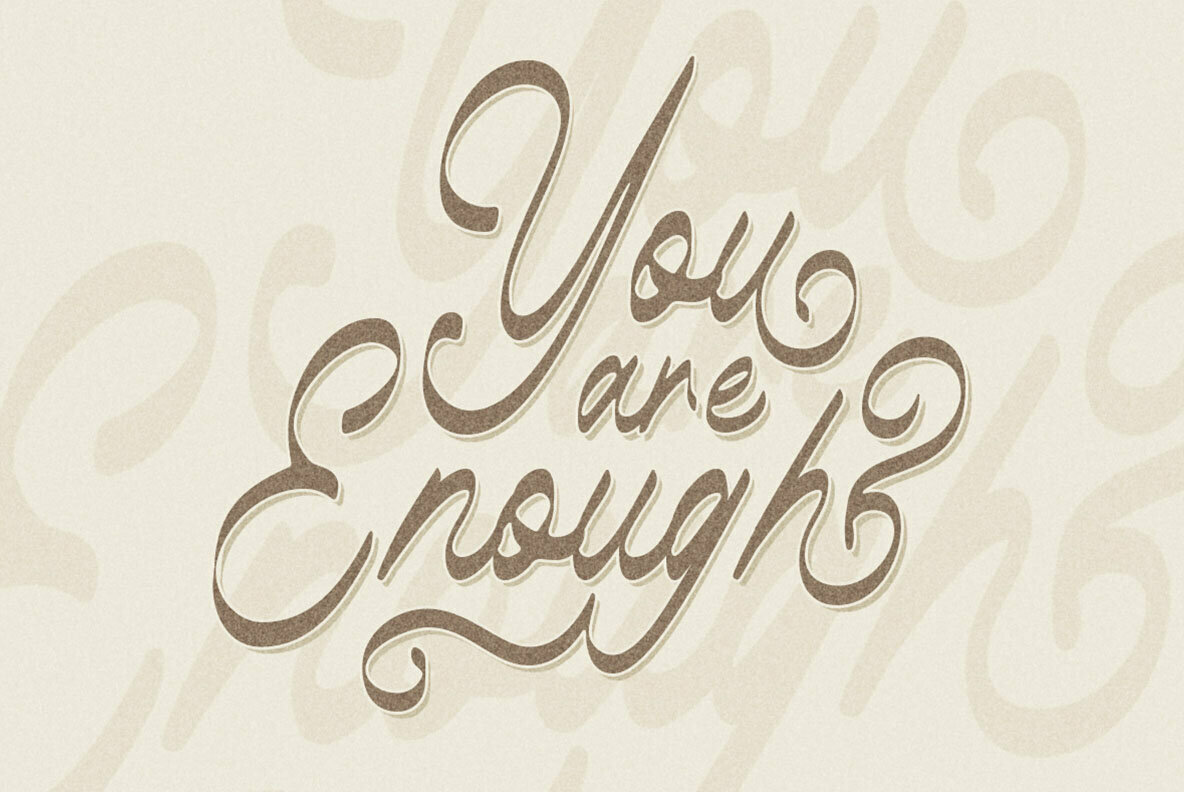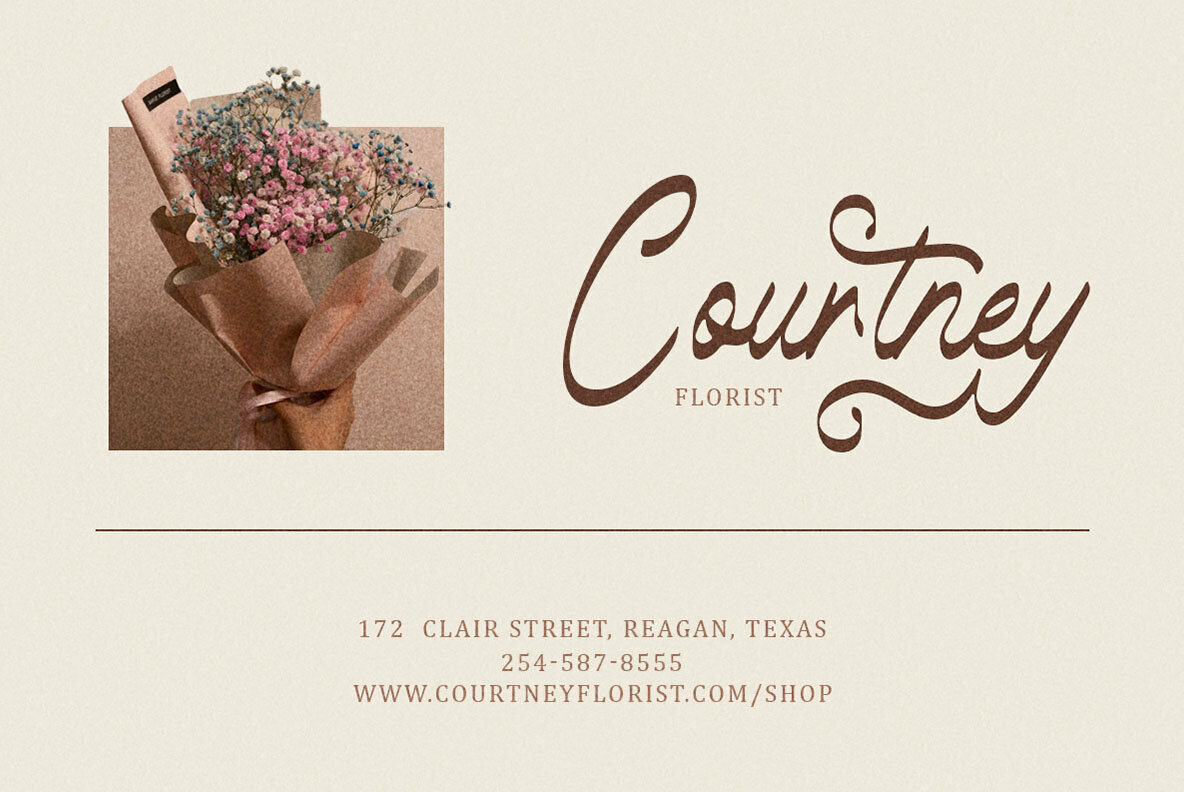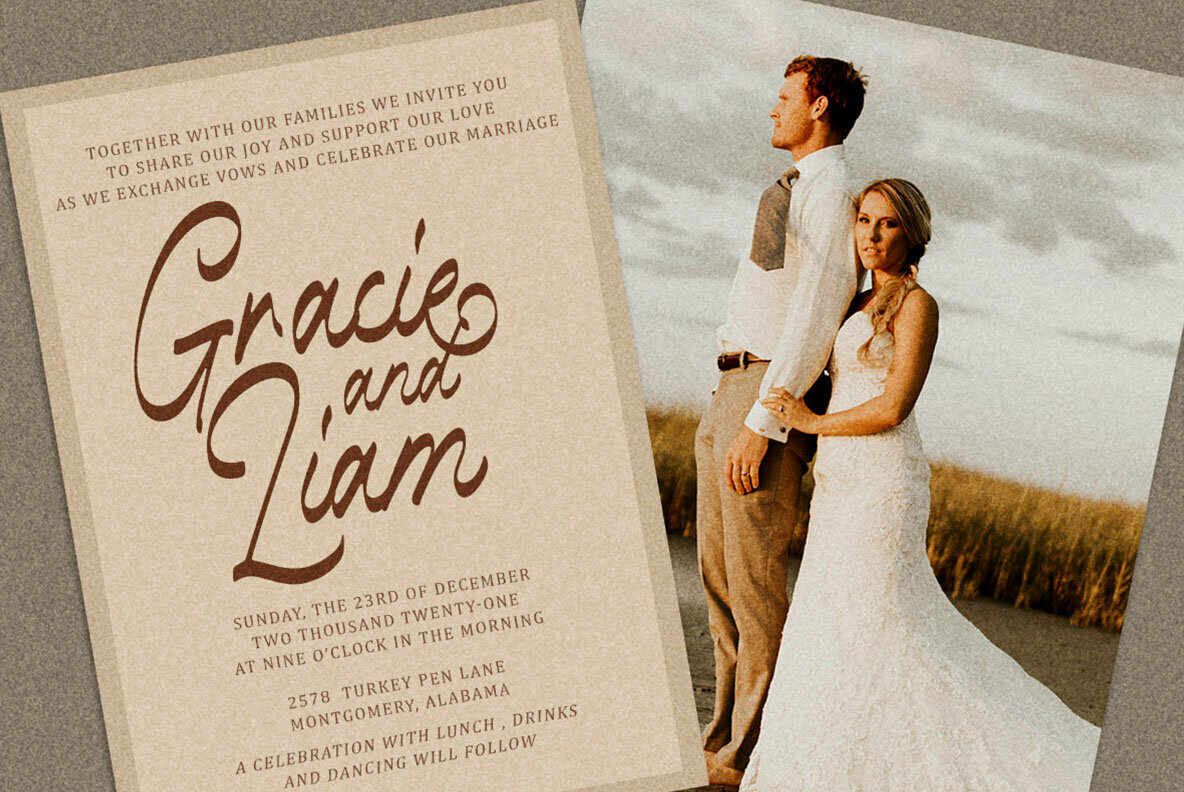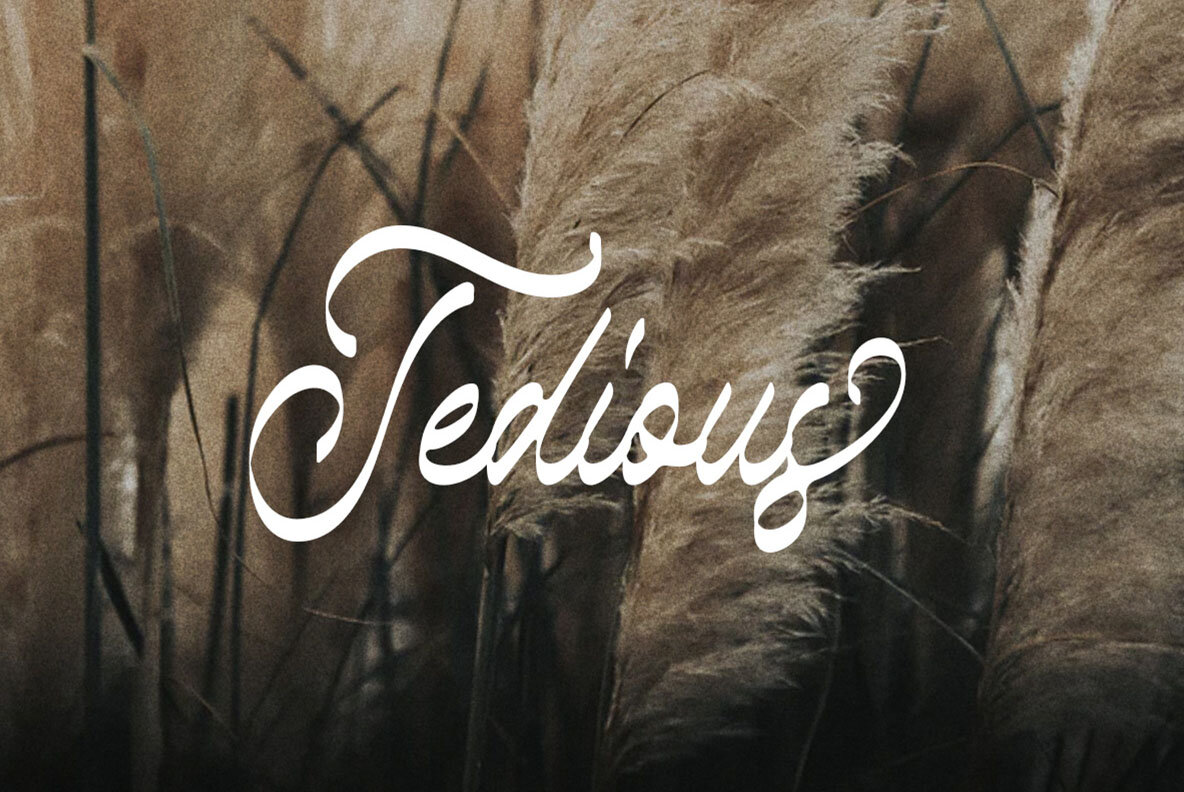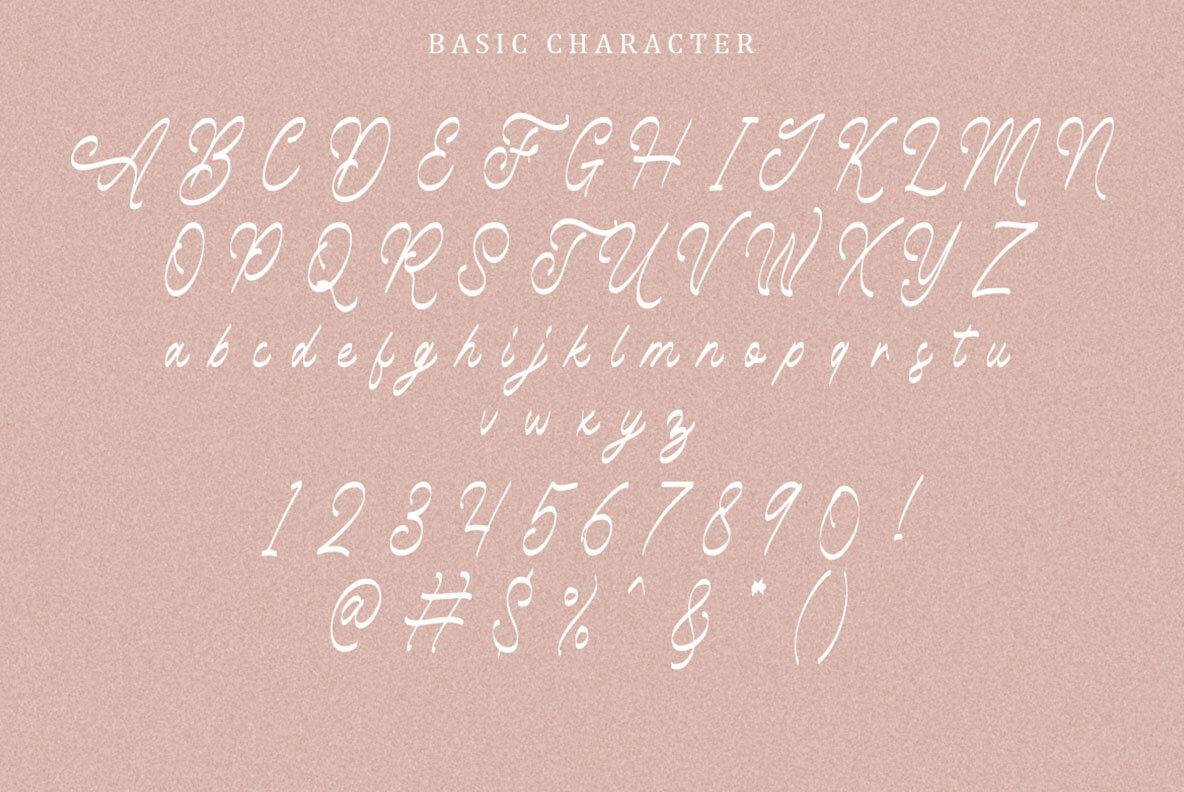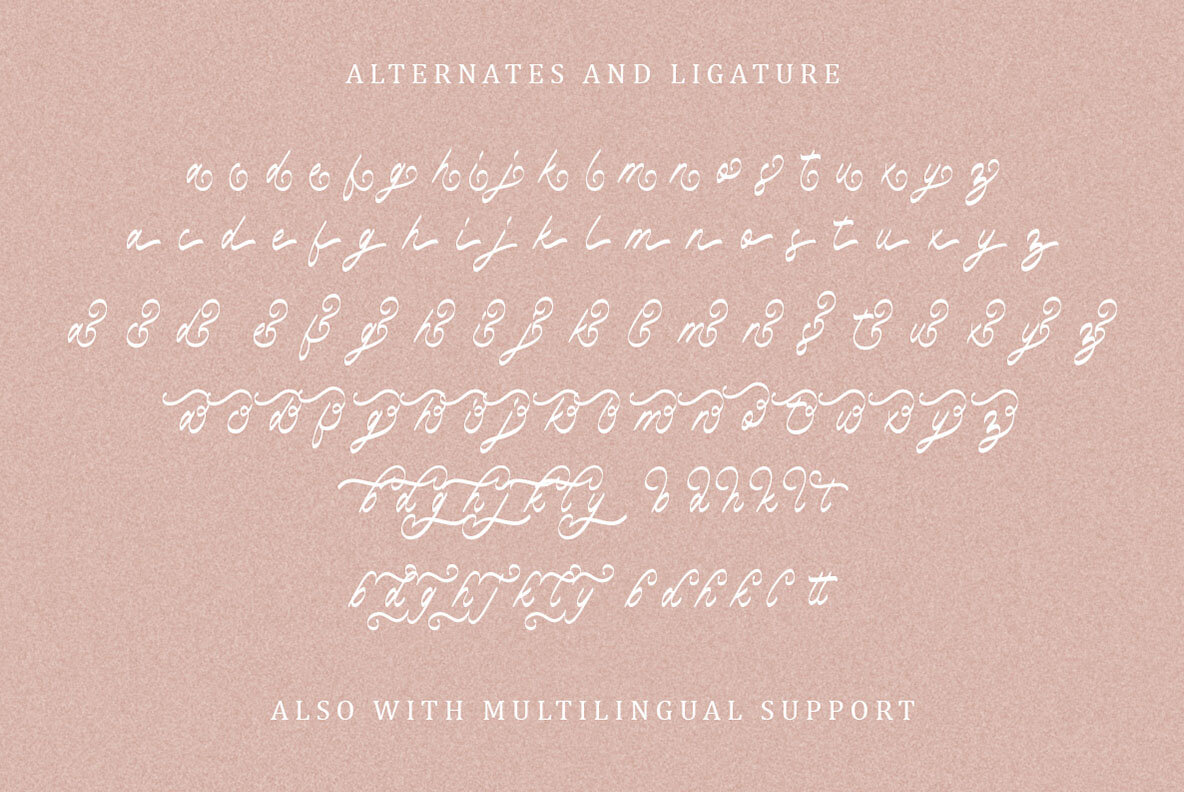
Taniesha
Taniesha by Rillatype adds a striking flair to your design projects with its unique style and dynamic swashes. Featuring up to eight alternate character sets, this font provides rich possibilities for creating attention-grabbing compositions. Ideal for logos, wedding invitations, magazines, book covers, packaging, and more, Taniesha offers a versatile aesthetic that enhances a wide range of creative works.Taniesha: A Versatile Display Font with Stylish Swash